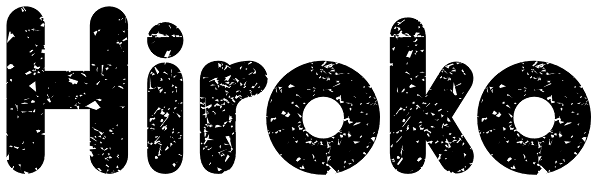
Hiroko
Hiroko is a remix of the multi-functional Hiruko typeface, with a bigger, bolder look and extra textured surface. Hiroko takes the functionality of its predecessor and turns it towards making an impact, so it does more than pass the message along...